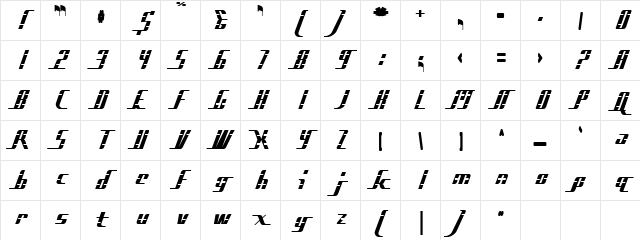
Sad Films SuperBold Free Font
Sad Films SuperBold
Style: SuperBold
Design Context for Sad Films
Sad Films is a composed and adaptable typeface that performs quietly and consistently across a wide range of design contexts. Its bold stroke weight gives it real presence on the page.